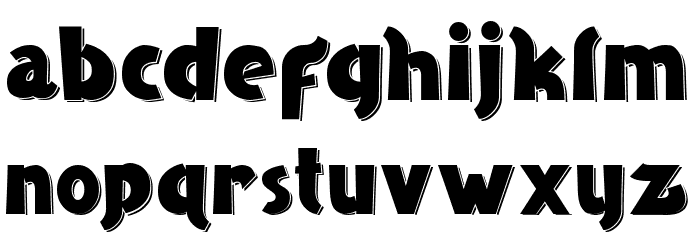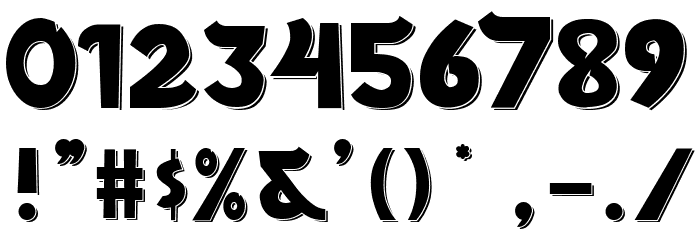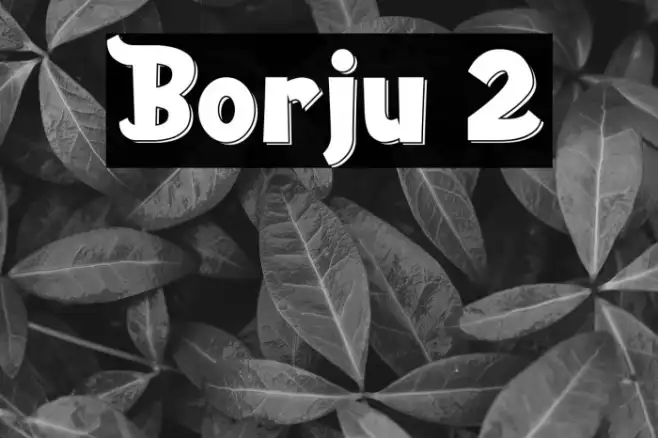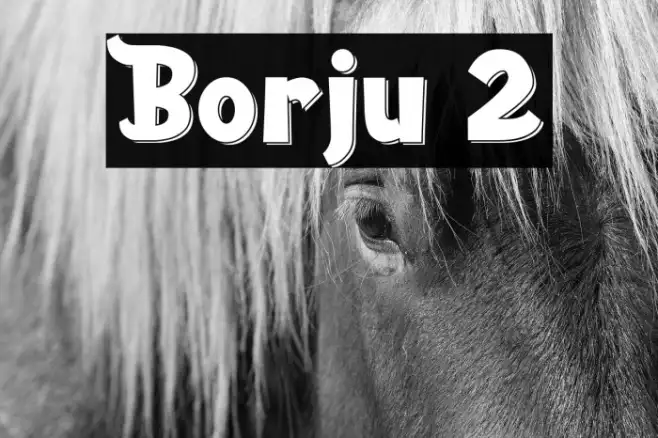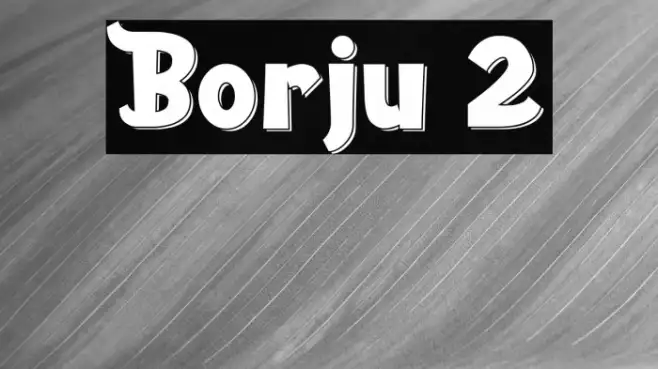
Borju 2 Font
This font features a bold and playful style with a strong presence. The characters are thick and have a slight shadow effect, giving them a three-dimensional appearance. The uppercase letters have a unique flair with exaggerated serifs and curves, while the lowercase letters maintain a consistent boldness. The numbers are equally bold, ensuring readability and impact. Special characters are designed with the same attention to detail, making them stand out. This font is ideal for projects that require a fun and dynamic look.
A bold, playful font with a three-dimensional effect and exaggerated serifs.
- Proposed Projects: Ideal for posters, logos, children's books, and any project needing a fun, bold typeface.
- Overall Style: Playful, Bold, Decorative